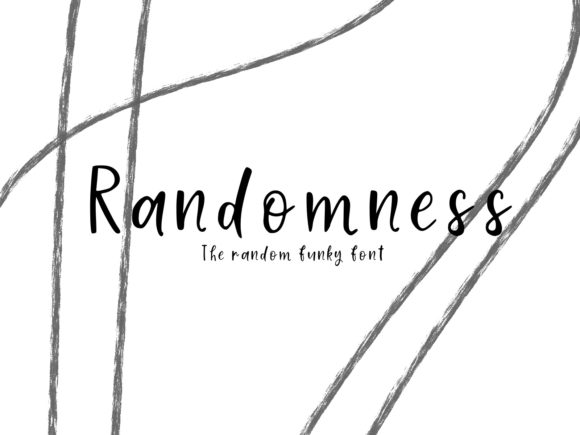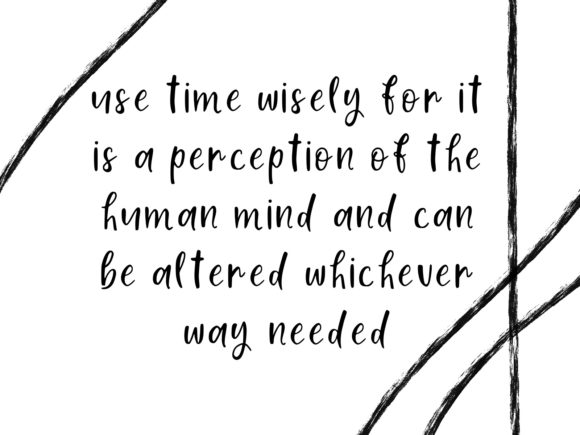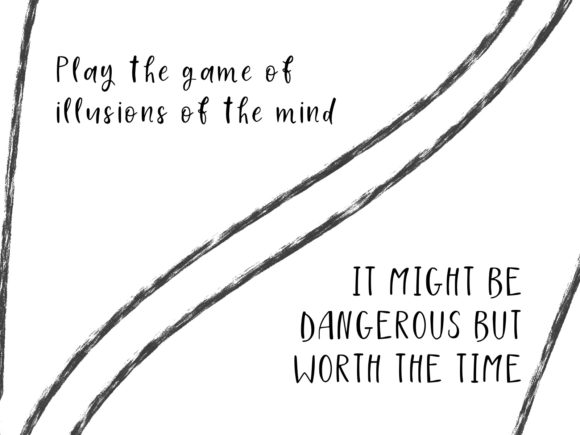
About Randomness Font
Randomness is a cute handwritten font. Its sweet and full of life style makes this font a wonderful choice for brightening up your designs.